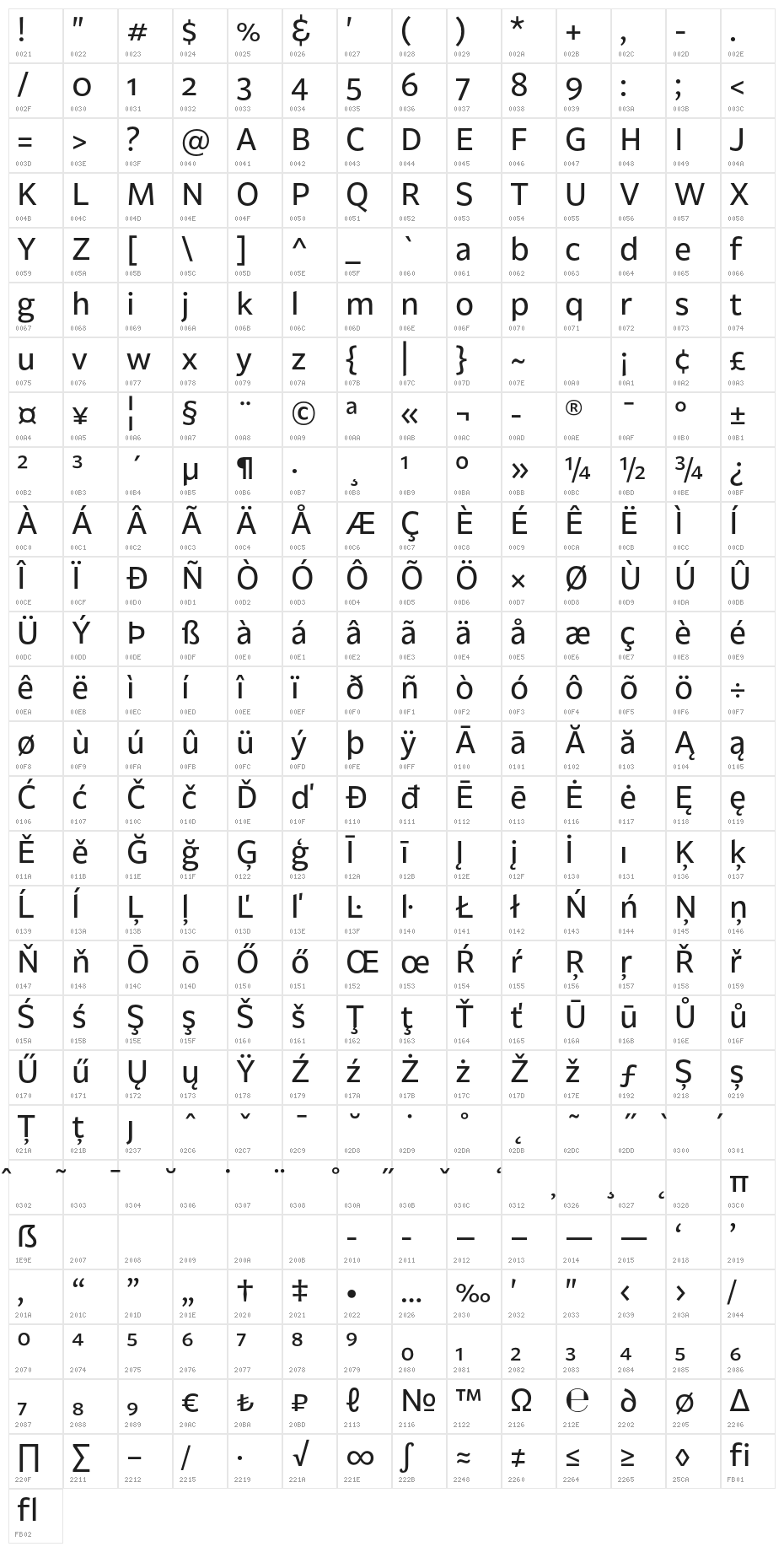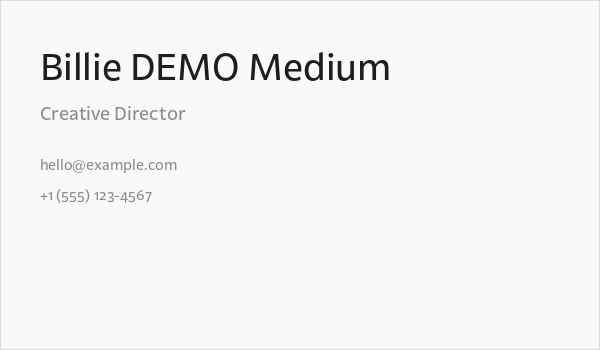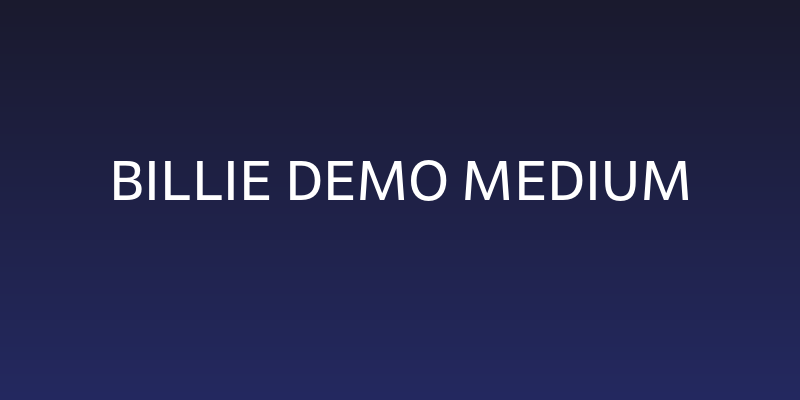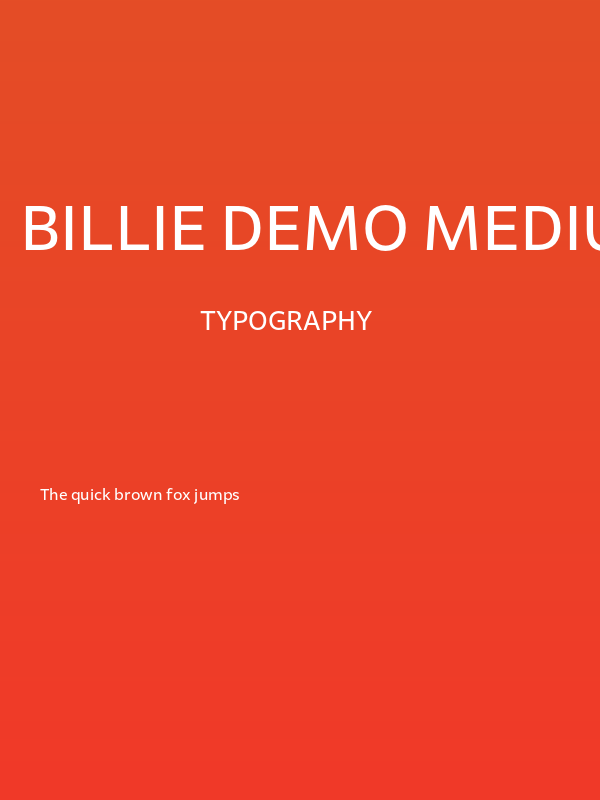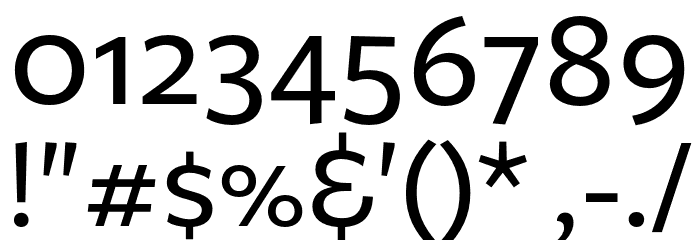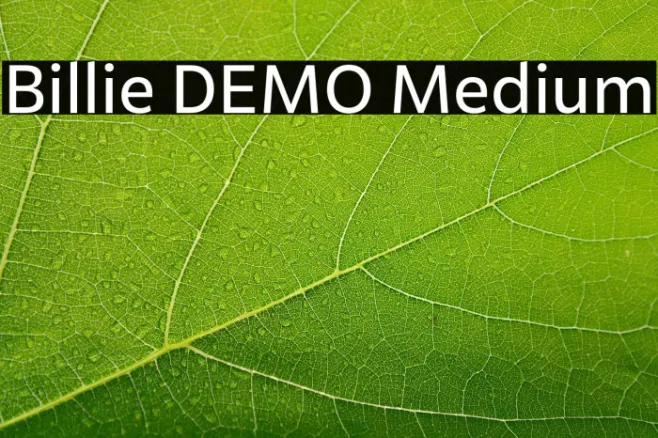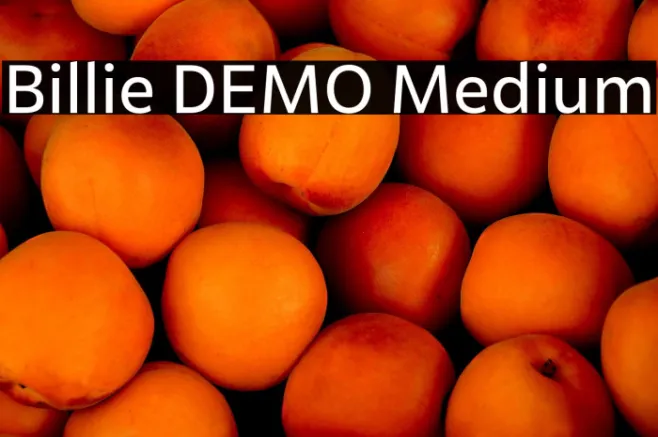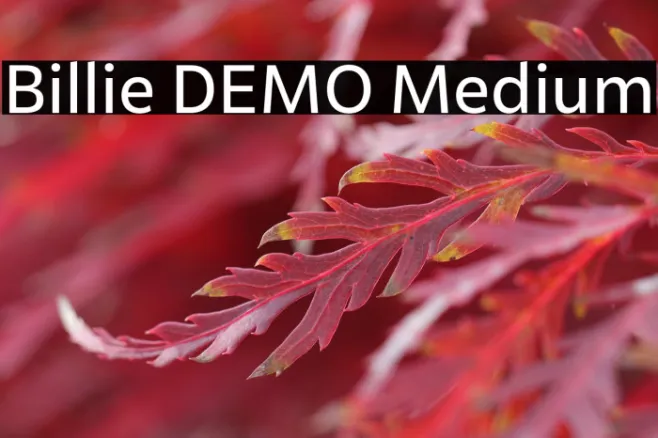
Billie DEMO Medium Font
Billie DEMO Medium Description
This font features a clean and modern sans-serif design, characterized by its geometric shapes and balanced proportions. The uppercase letters are bold and assertive, while the lowercase letters maintain a friendly and approachable appearance. The numerals are clear and easily distinguishable, making them suitable for both digital and print applications. Special characters are well-integrated, providing versatility for various uses. The overall design exudes a contemporary aesthetic, making it ideal for modern branding and design projects.
| Proposed Projects | Ideal for branding, web design, advertising, and editorial projects. |